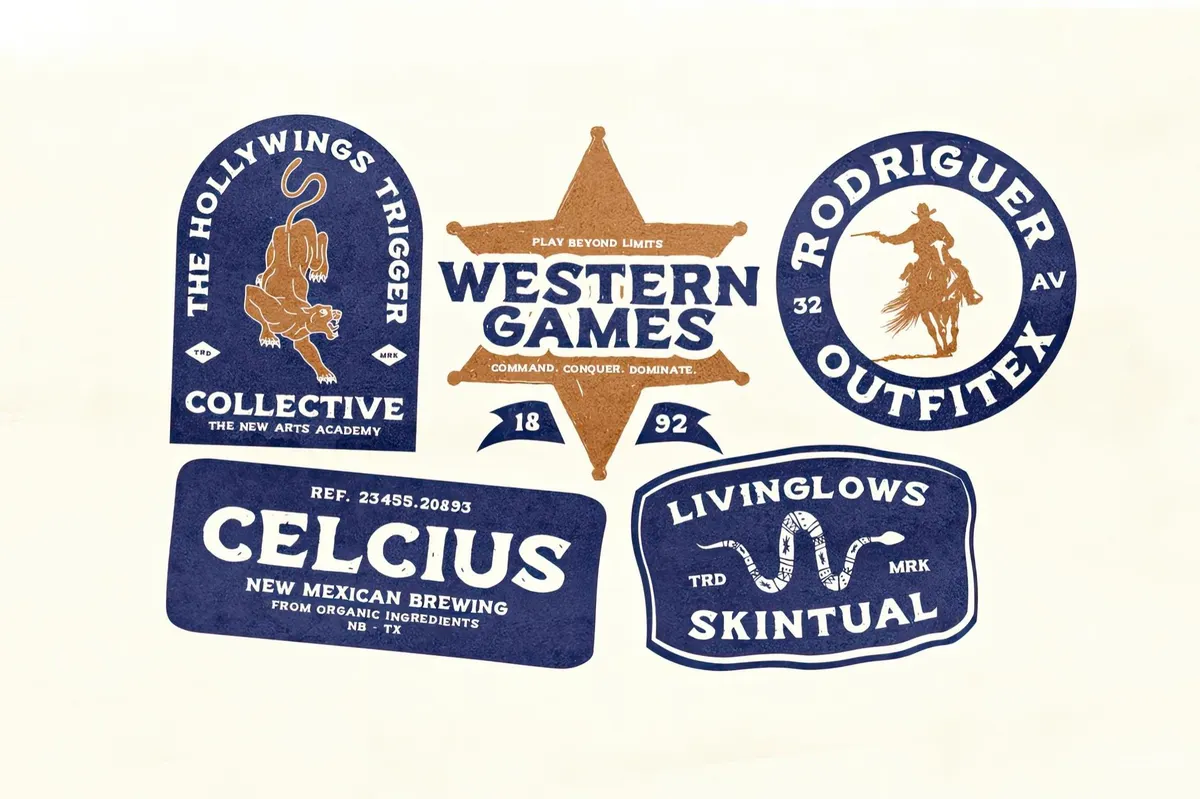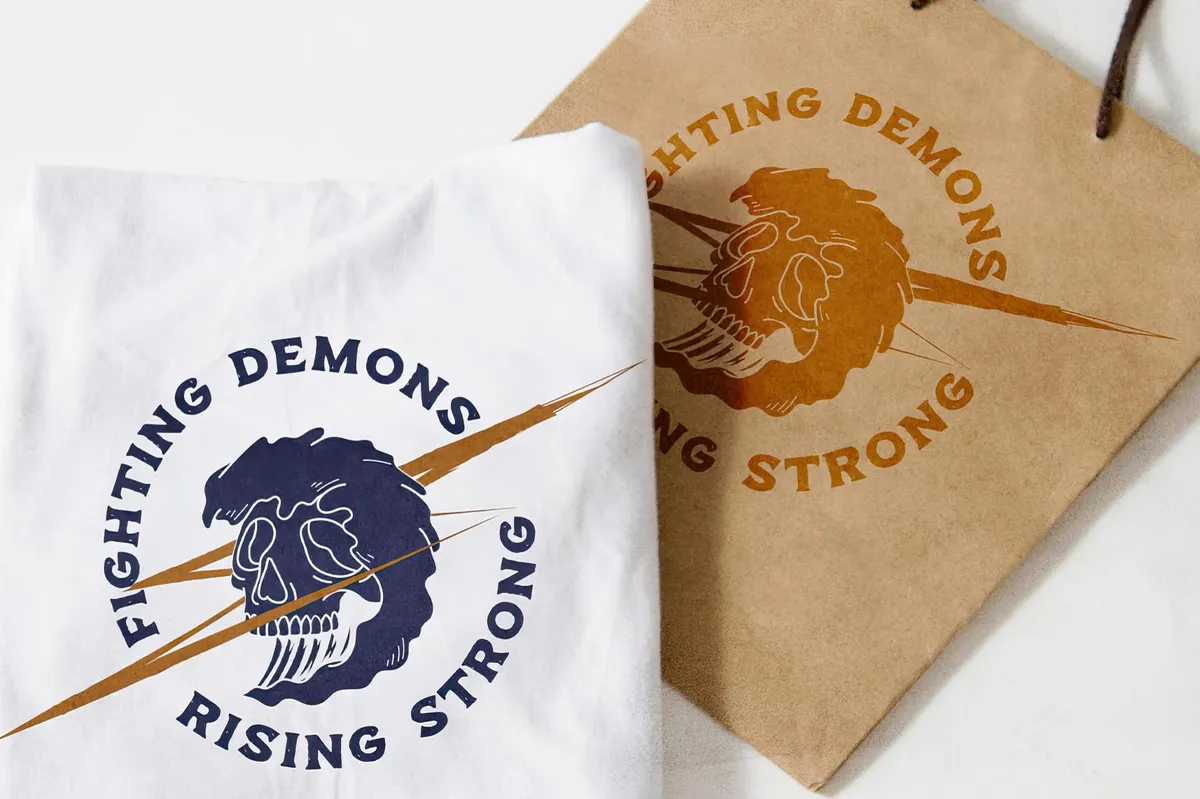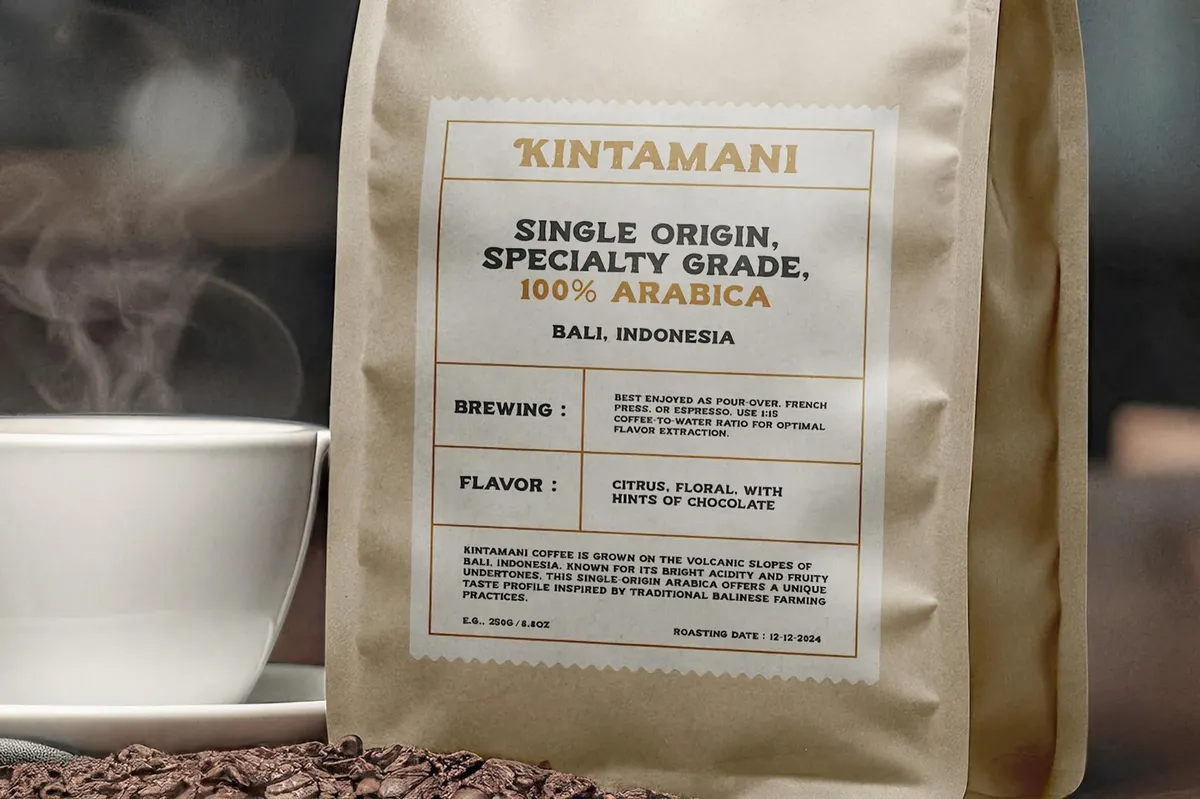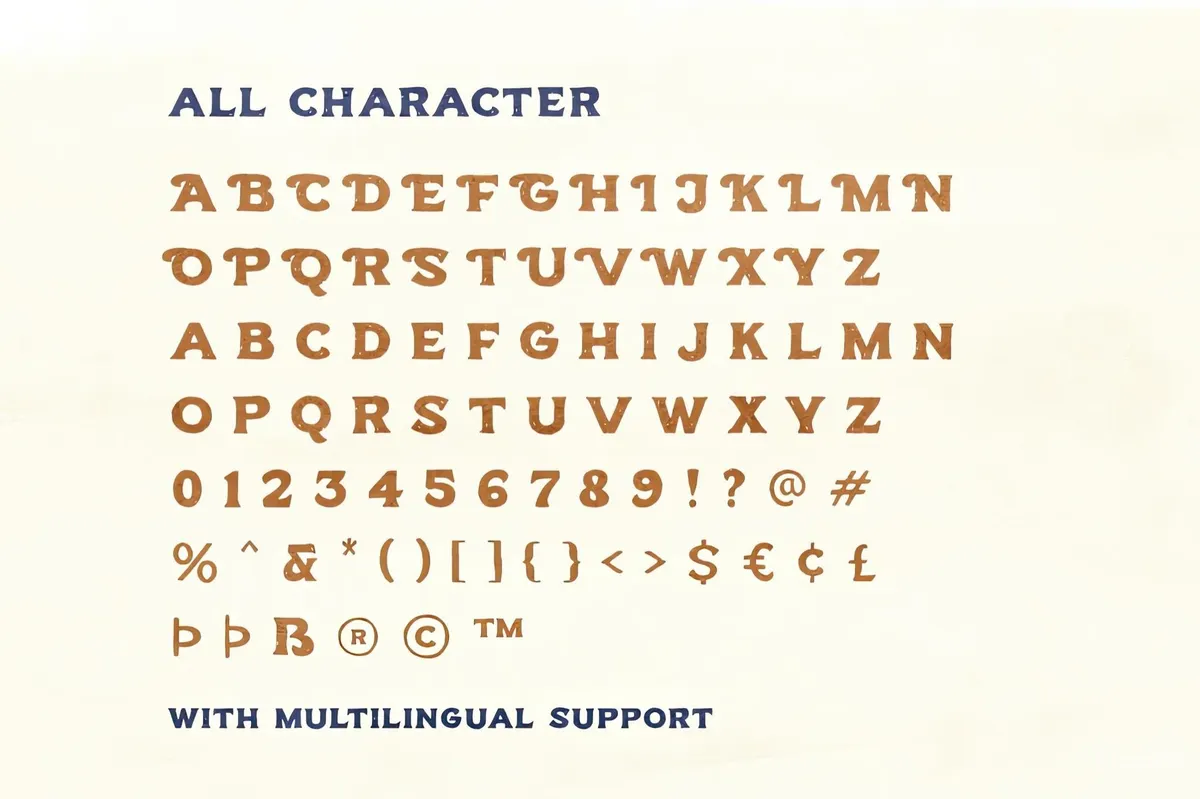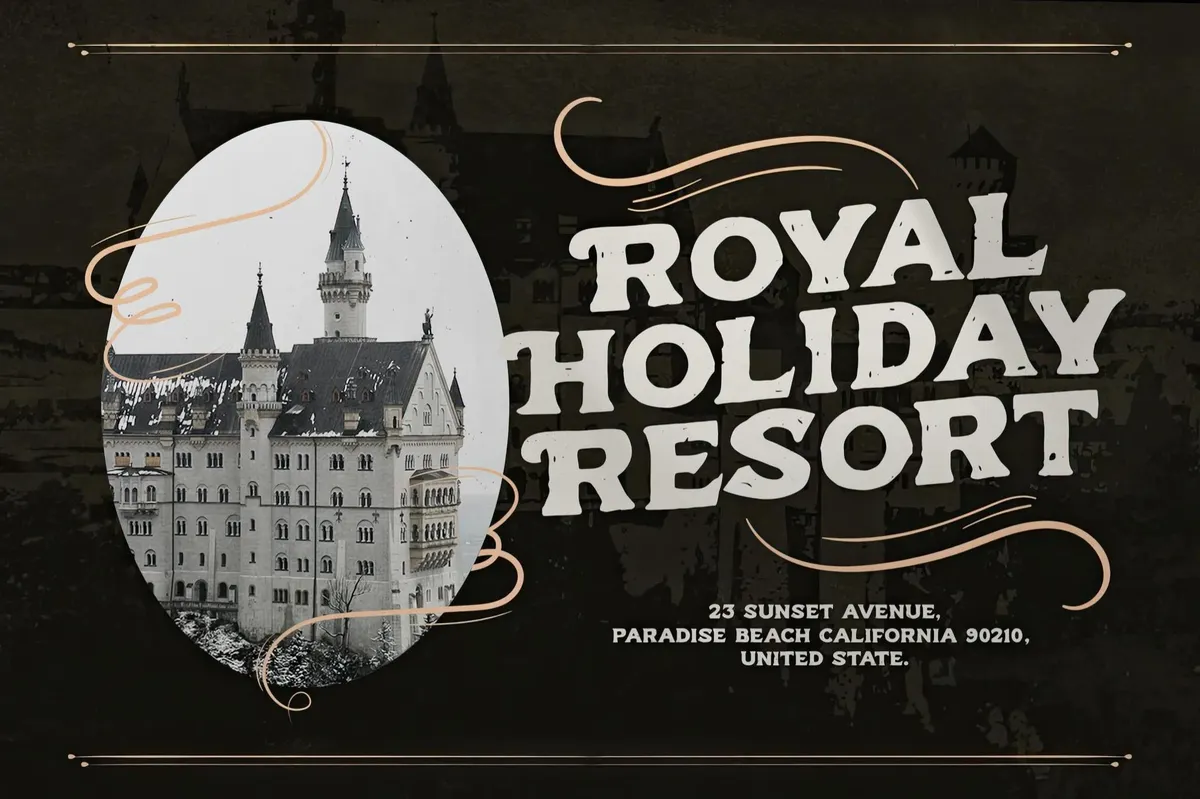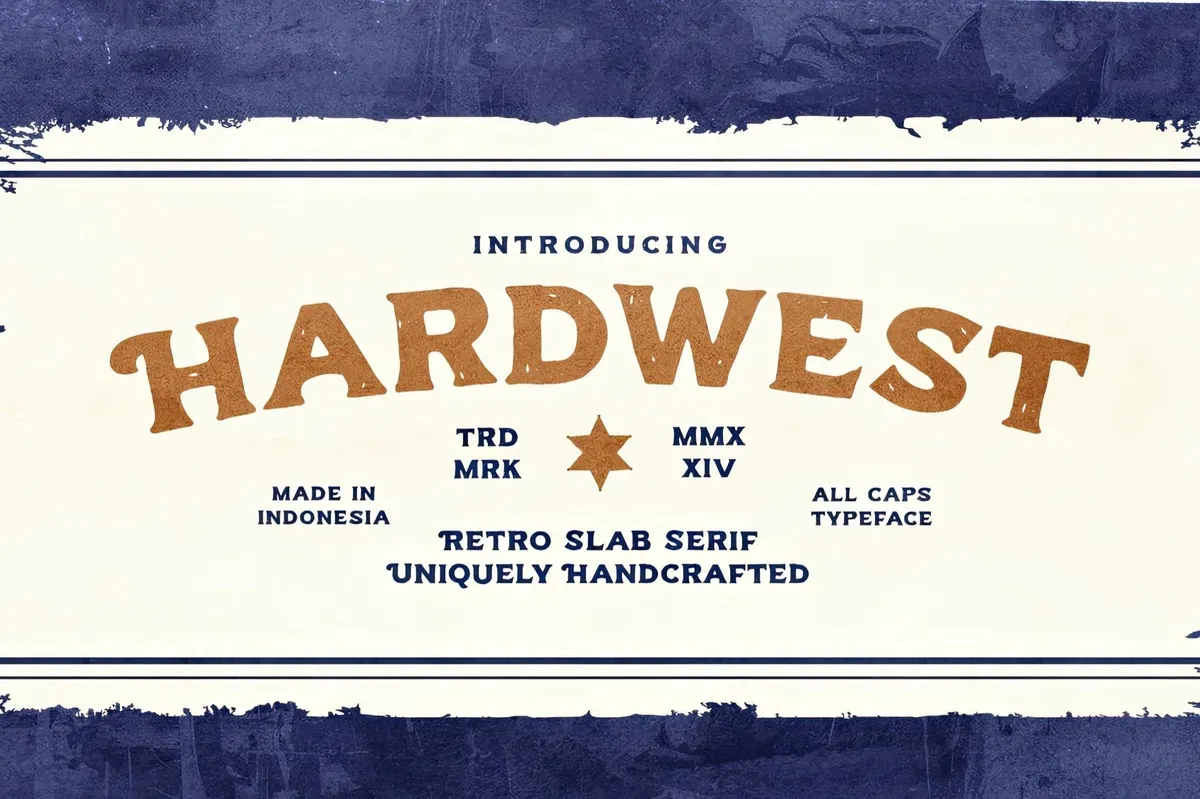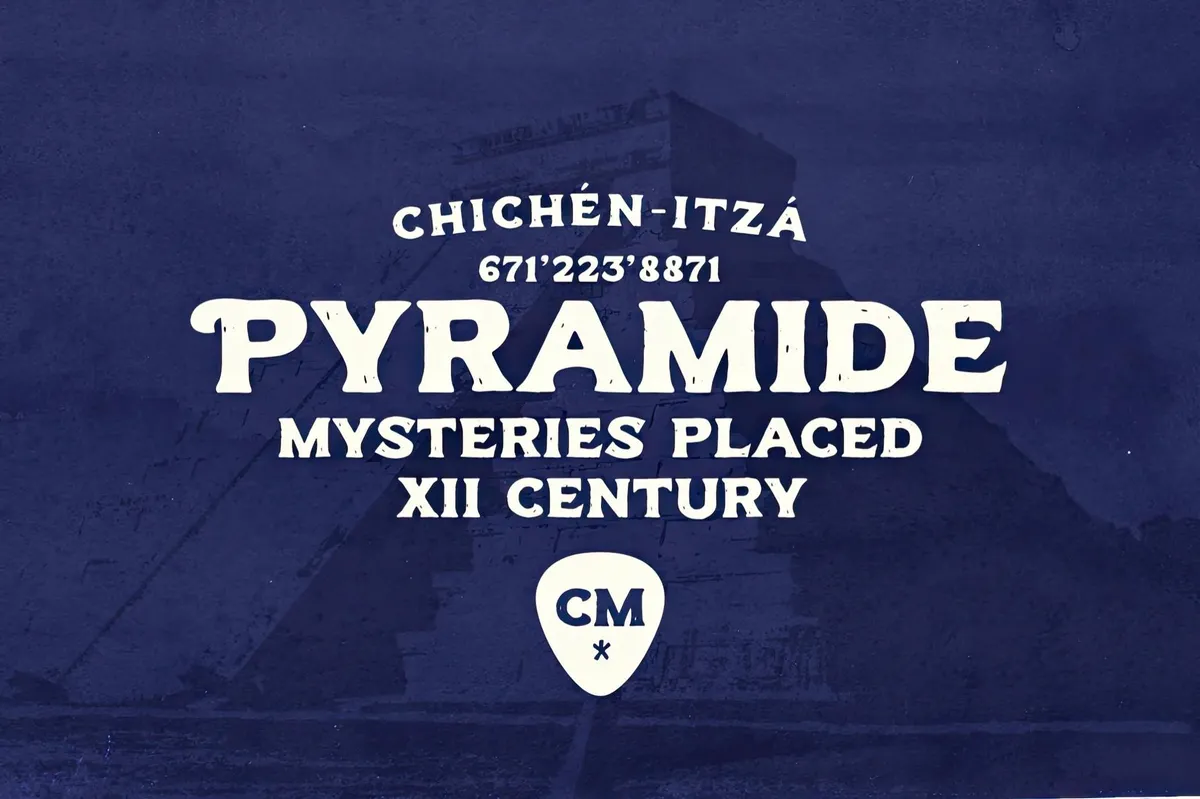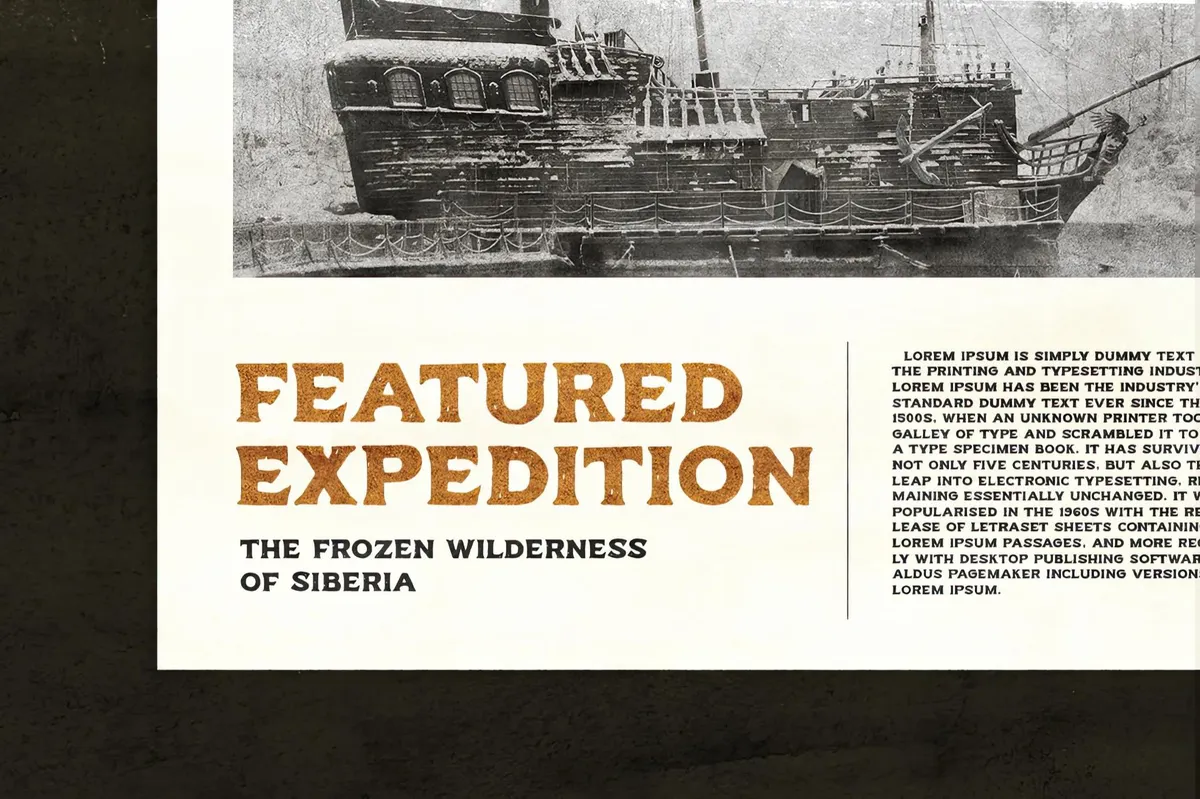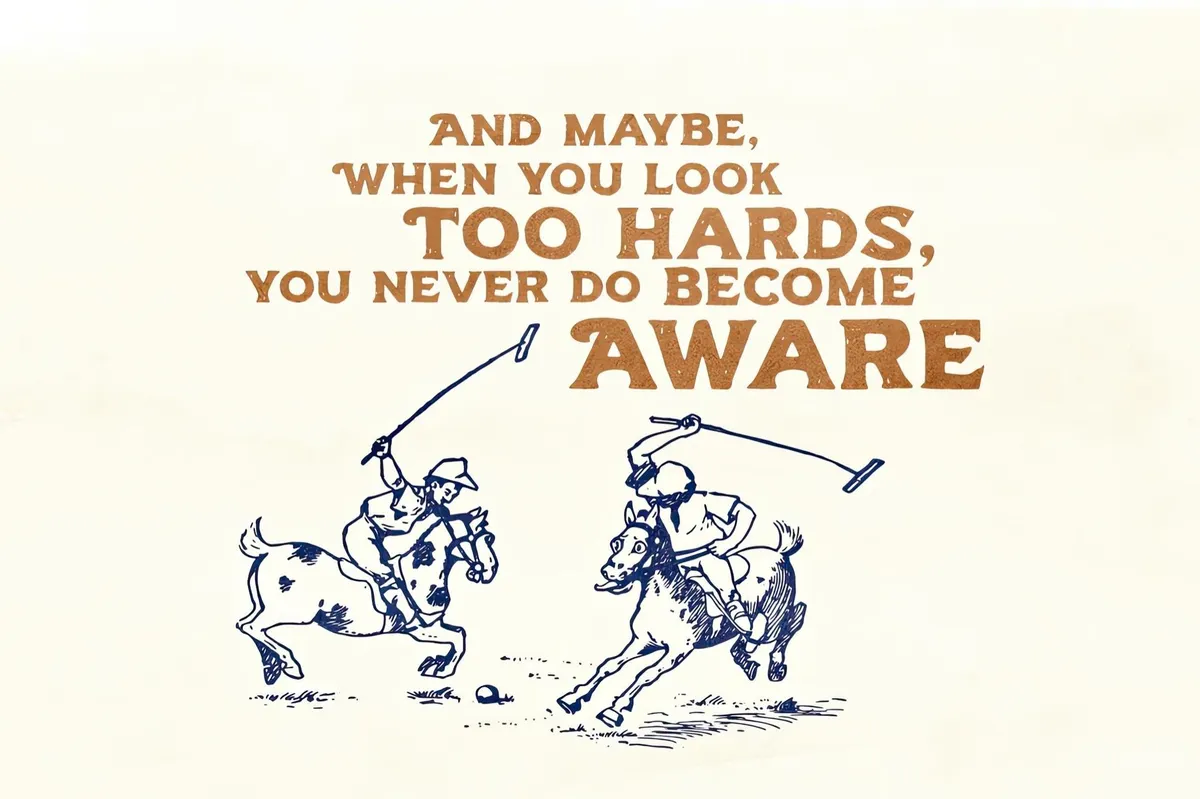
Hardwest Retro Slab Serif
Hardwest is what happens when a typeface rides off into the sunset with a saddlebag full of character. It's a retro slab serif with a handcrafted edge, weathered just enough to feel like it's been stamped on cattle, saloon doors, and the side of a whiskey barrel. Just picture old-school rodeo flyers crossed with tattoo-parlor signage — with a wink to Tarantino's title cards.
Hardwest is an all-caps, yet with alternate uppercase and lowercase characters that bring just enough quirk to the message. It'll work out in a logotype, hipster merch, quotes, spirit labels, and some apparel stuff. Multilingual support included — even cowboys speak more than one language these days.